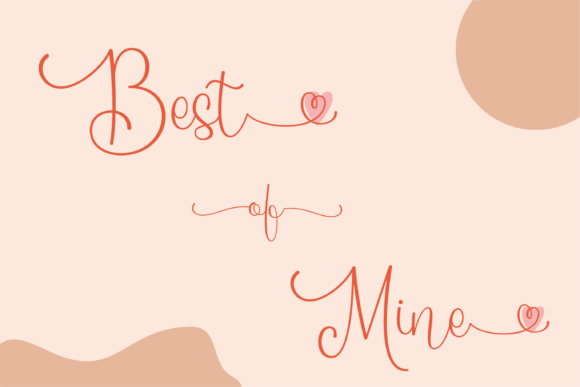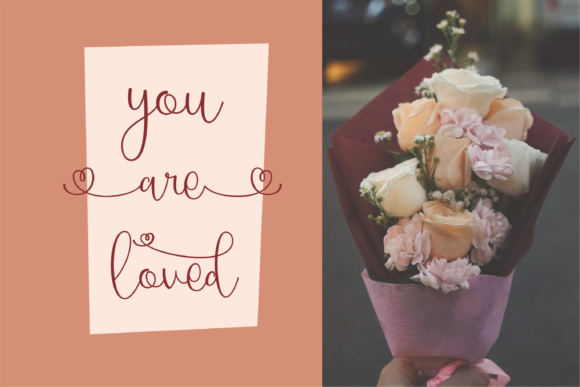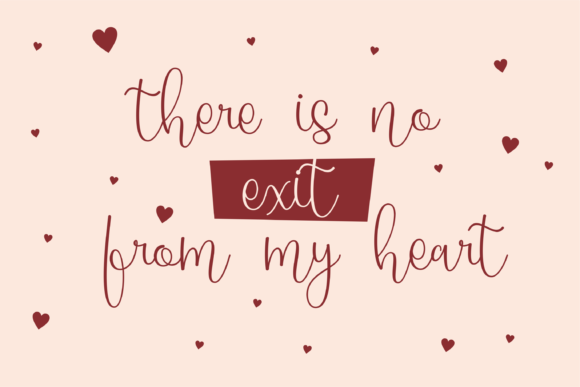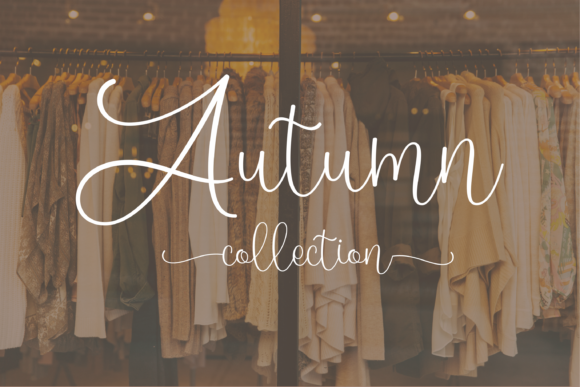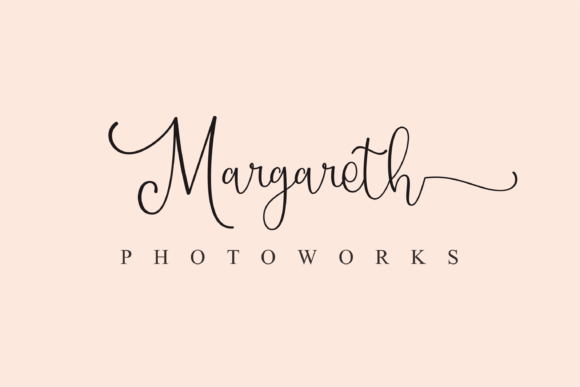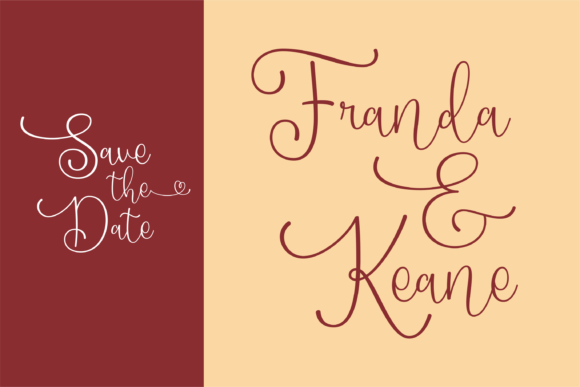
The Sweet Allure of Aisha Font
There’s nothing quite like the rush of creativity that comes when you’re staring at a blank page, trying to bring a new project to life. The blank slate can be intimidating, but it’s also an opportunity to let your imagination run wild. For designers, this moment is a chance to get creative with typography, and that’s where Aisha Font comes in.
Aisha Font is a beautiful, elegant handwritten font that’s designed to add a touch of whimsy and sophistication to any design project. With its flowing characters that dance along the baseline, this font is perfect for creating invitations, quotes, and other text-based designs where a personal touch is needed. The fact that it’s PUA encoded makes it easy to access all of the glyphs and swashes, giving designers the freedom to get creative with their typography.
Whether you’re a seasoned designer or just starting out, Aisha Font is a valuable tool in your creative arsenal. Its versatility and elegance make it a must-have for anyone looking to add a touch of personality to their designs.
Aisha Font Key Features
- Unique Characteristics: Aisha Font features a unique, elegant script style with intricate details and flourishes, making it perfect for creative and artistic projects.
Aisha Font Review
Overall, the Aisha Font is a unique and elegant choice for any design project. It has a distinctive, handwritten feel that can add a touch of sophistication and personality to your work.
- The font’s flowing, cursive script makes it perfect for titles and headings.
- The font’s elegance and refinement make it suitable for a variety of industries, from fashion to luxury goods.
- The font’s extensive language support ensures that it can be used in a global context.
- The font may not be suitable for body text, as its cursive script can be difficult to read in large quantities.
- The font’s uniqueness can sometimes make it difficult to pair with other fonts, requiring careful consideration of typography.
Overall, the Aisha Font is a solid choice for designers looking to add a touch of elegance and sophistication to their work. While it may have some limitations, its unique character and extensive language support make it a valuable addition to any design toolkit.
For best results, use the Aisha font in conjunction with other elegant and minimalist design elements to create a sophisticated look.
For best results, use the Aisha font in a clean and simple design to let the text take center stage.
For best results, use the Aisha font in a clean and simple design to create a professional-looking presentation or document.
The Aisha font is well-suited for:
- Business cards and resumes
- Food and beverage labels
- Wedding menus and place cards
Remember to use the Aisha font in conjunction with other design elements to create a cohesive and visually appealing design